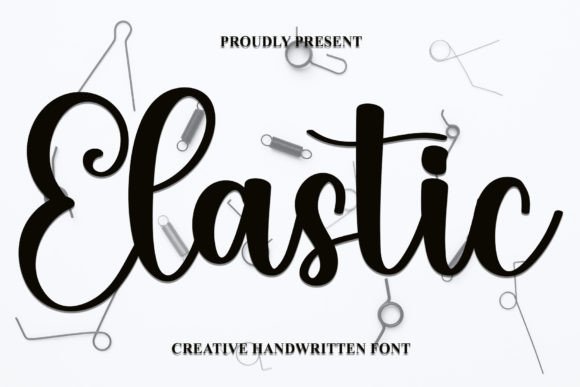
Introduction to Elastic Font
Elastic is a neat and casual handwritten script font.
It’s perfectly suitable for making flyers, wedding invitation cards, logos, banners, birthday cards, social media posts, and thumbnails .
Elastic Font offers exceptional quality and versatility, making it a valuable addition to your design toolkit. Whether you’re creating for personal projects or commercial use, Elastic Font delivers professional results.